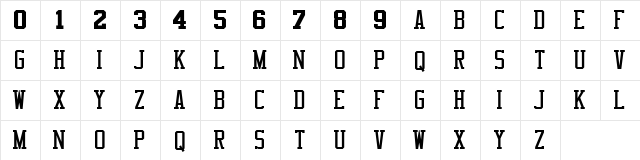
NBA Bulls Regular
Design Context for NBA Bulls Typeface
NBA Bulls offers clean, dependable letterforms without strong stylistic allegiance, making it a practical choice for designers who need flexibility.
Pro Tip: Use NBA Bulls in both headline and body roles to test its range before committing to a single application.